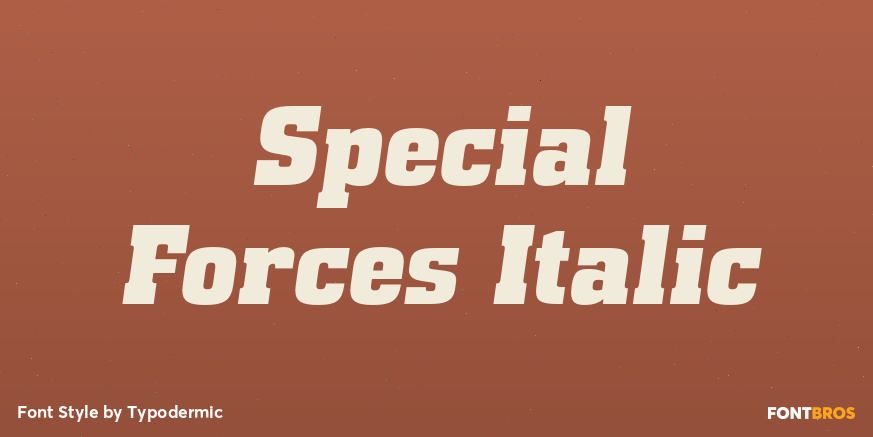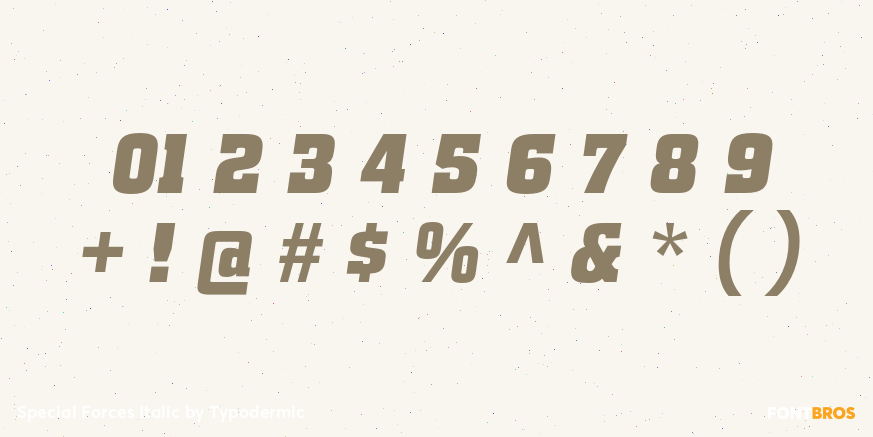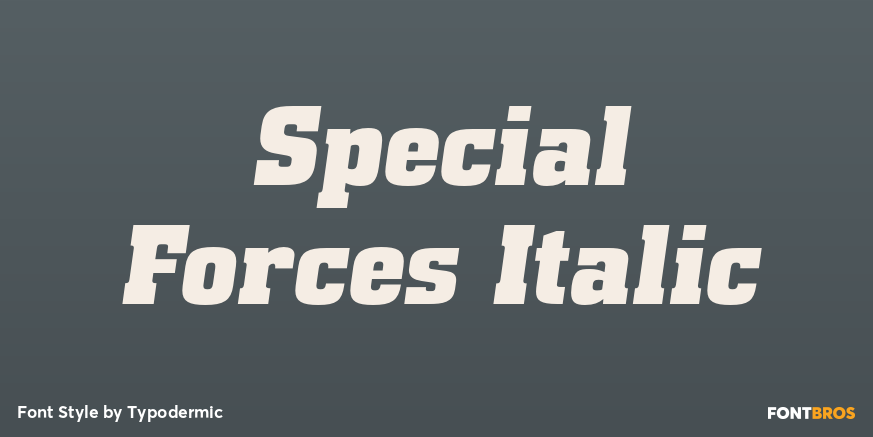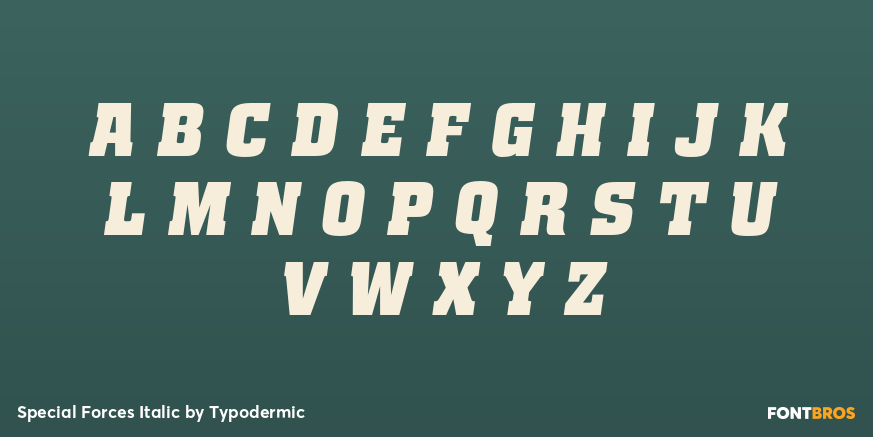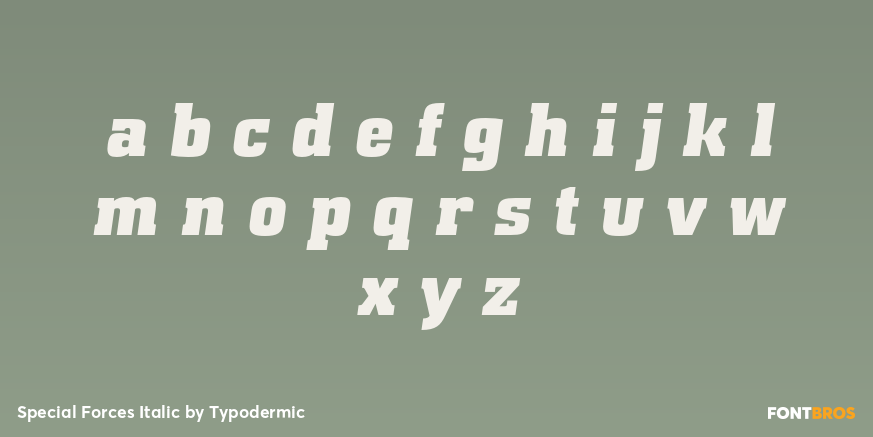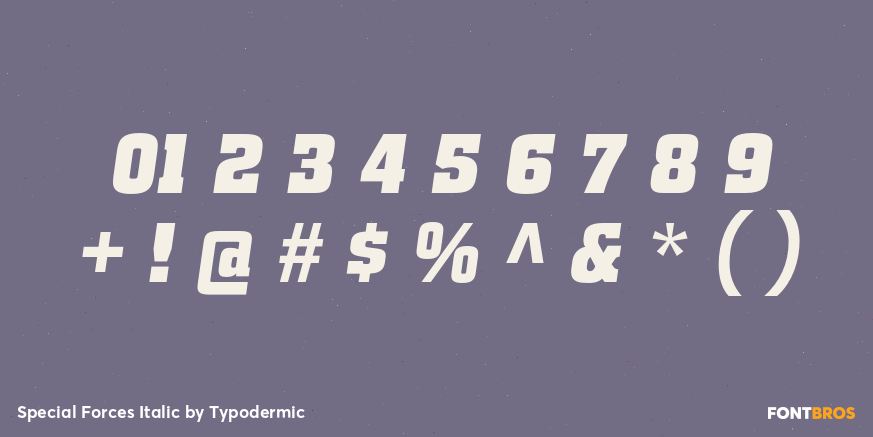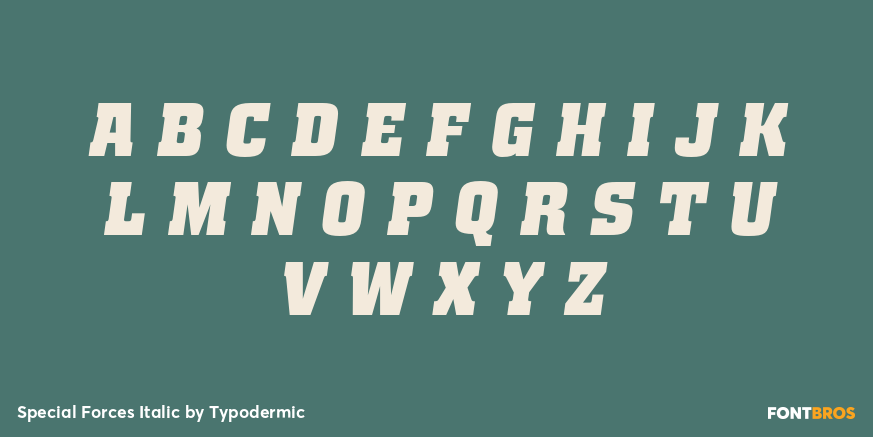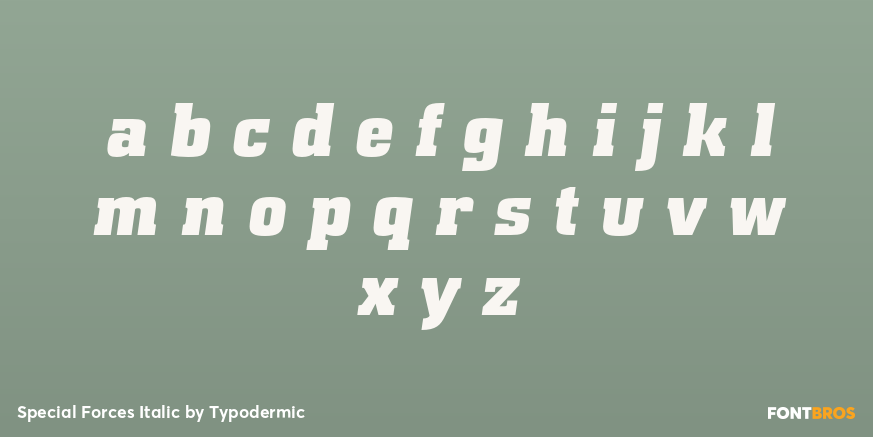
Special Forces Italic
Buy NowSpecial Forces is a compact slab serif built for physical impact. Its heavy strokes, blunt rectangular serifs, tight proportions, and usable lowercase give product names substantial presence without forcing every word into block capitals. It feels most at home on things that are built, carried, bolted down, charged up, or expected to survive a workday.
Professional and serious-DIY tools are a natural setting. Cordless drills, impact drivers, grinders, saws, nailers, sanders, multitools, work lights, and specialty tools increasingly belong to larger battery ecosystems rather than standing alone. Those systems need platform names, tool families, model names, battery tiers, charger names, kit graphics, and retail displays to remain visibly related. Special Forces can sit directly on a molded tool housing or battery pack, then continue onto combo-kit cartons, carrying cases, dealer displays, and launch material.
The same construction works well for the products surrounding the tool itself. Saw blades, drill bits, hole saws, grinding discs, abrasives, fasteners, anchors, construction adhesives, sealants, and repair compounds often appear in large families with many sizes and material variants. Special Forces can carry the range name or product class while a quieter companion handles dimensions, tooth counts, grit, load ratings, and other specifications.
Jobsite electrification opens another useful territory. Portable power stations, high-output battery banks, inverter units, charging hubs, and temporary-power equipment need strong model names across housings, protective cases, packaging, and trade-show displays. Outdoor power equipment extends the same visual system into battery chainsaws, hedge trimmers, blowers, brush cutters, pole saws, lawn mowers, and professional grounds-maintenance equipment.
Tool storage and protective equipment provide another physical application. Rolling toolboxes, modular case systems, drawer units, workshop carts, contractor bags, work gloves, safety footwear, knee protection, and rugged equipment cases all offer broad surfaces for molded badges, printed model names, patches, carton graphics, and range identifiers.
Inspection tools such as thermal cameras, laser levels, borescopes, electrical testers, moisture meters, and wall scanners can use Special Forces for equipment names, kit-case graphics, product-series identities, and packaging while reserving a neutral face for small readings and detailed interface text.
The military name still makes Special Forces suitable for defense-industry graphics, field equipment, military heritage material, and training-related applications, but stencil cuts and camouflage are not part of its visual language. Its character comes from mass, compactness, and blunt slab construction rather than tactical decoration.
Special Forces is most convincing when typography becomes part of the object: printed on a drill, molded into a storage case, stamped across a blade package, applied to a mower deck, or stretched over a battery housing.